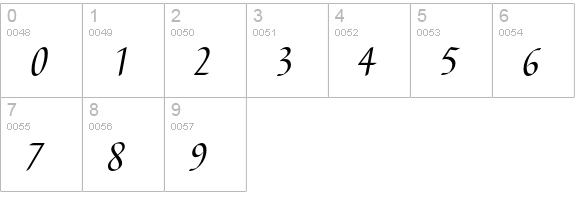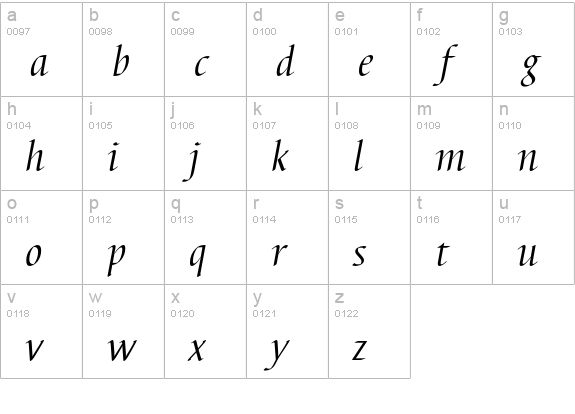
Barbedor T Regular Italic is the standard, neutral, italic variant in the Barbedor typeface family \xE2\x80\x94 well suited to general body text, paragraphs, and standard typographic work.
Barbedor T Regular Italic font is a sophisticated and elegant typeface that exudes a sense of refinement and grace. Its sleek and stylish design makes it perfect for adding a touch of class to any project, whether it be print or digital. The italicized variation of the Barbedor T Regular font adds a dynamic and modern flair to your text, making it stand out beautifully. What makes Barbedor T Regular Italic font even more appealing is that it is available for free download at FontsMarket.com. This means you can access this stunning typeface without any cost, allowing you to elevate your designs without breaking the bank. Whether you're designing a logo, creating invitations, or crafting a website, Barbedor T Regular Italic font is sure to impress with its timeless charm and versatility. Download it today and see for yourself the impact it can have on your projects.